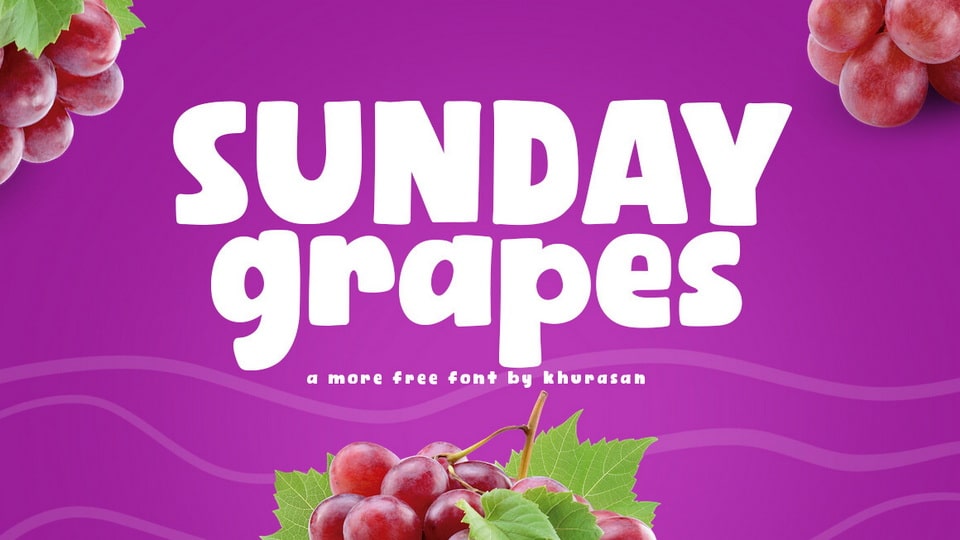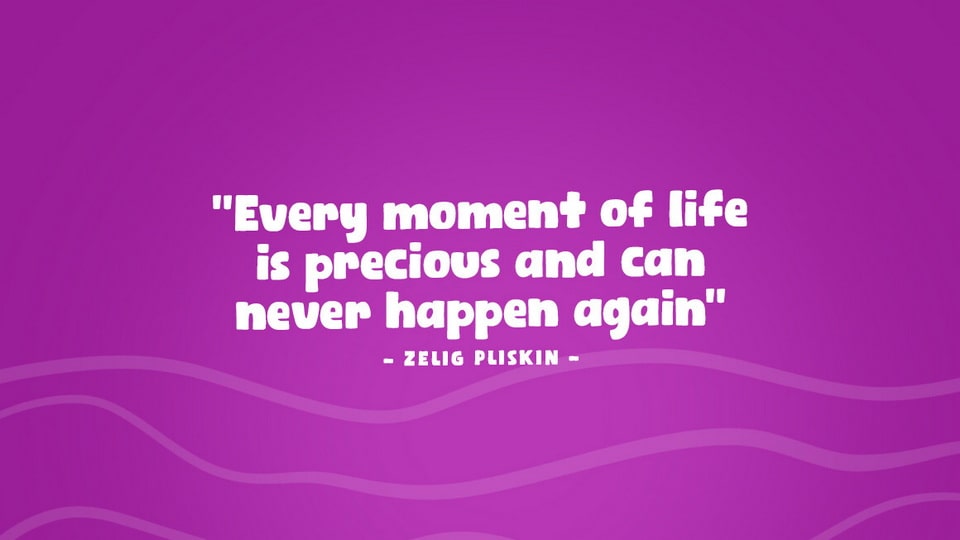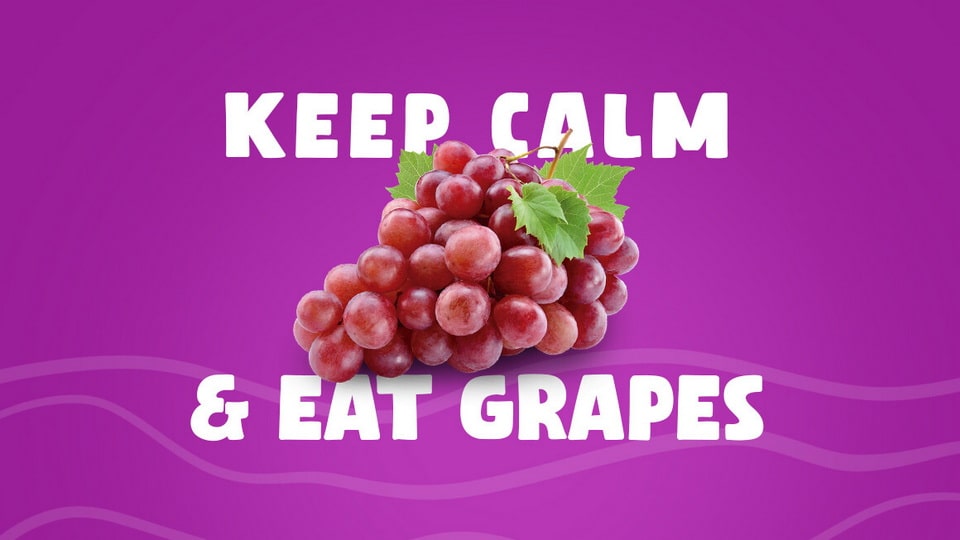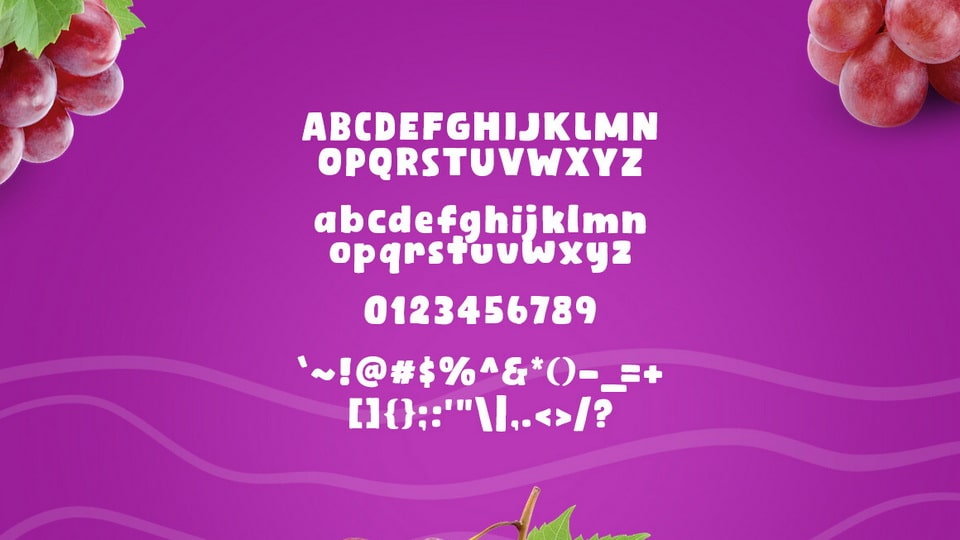
Sunday Grapes is a font that brings vibrant, playful, and bold look to your designs. Each letter is a dynamic character in its own right, bursting with energetic movement and a vivid personality.
With Sunday Grapes, your designs become a playground of creativity. Whether you’re crafting titles for children’s books, eye-catching event posters, or branding that stands out, this font infuses a joyful spirit into your work.